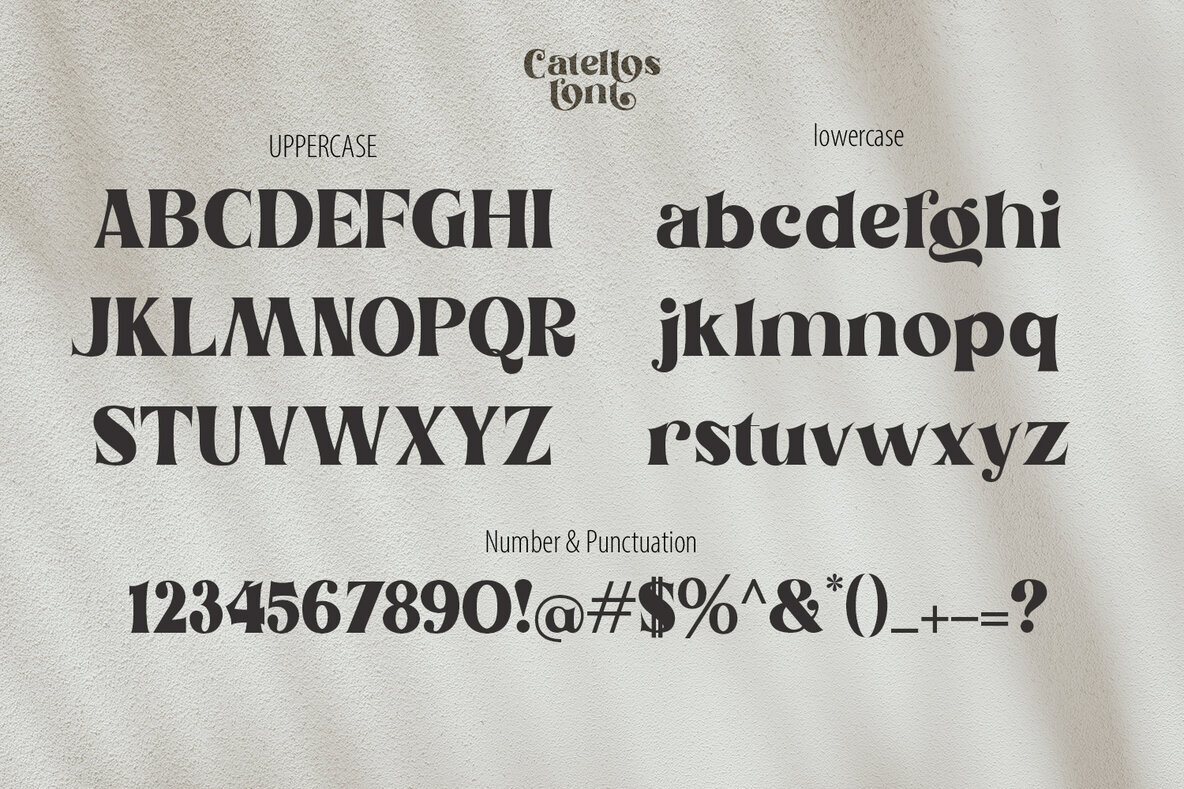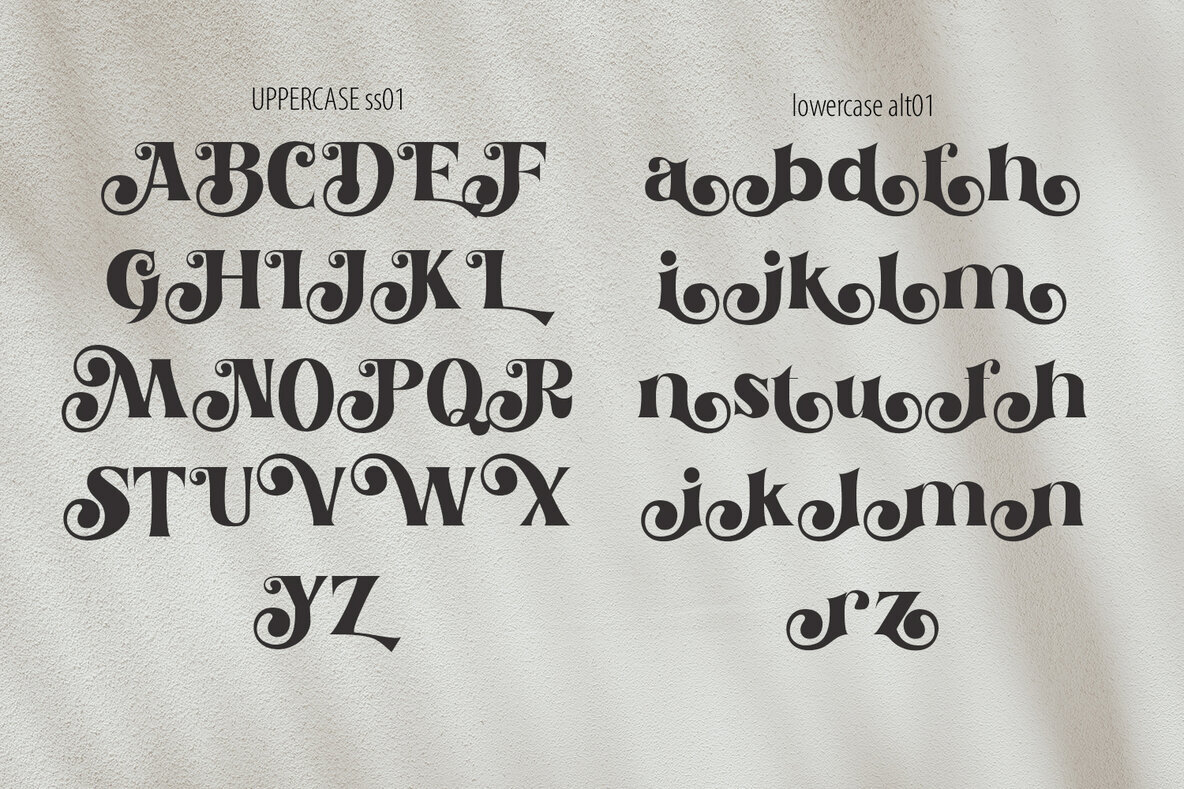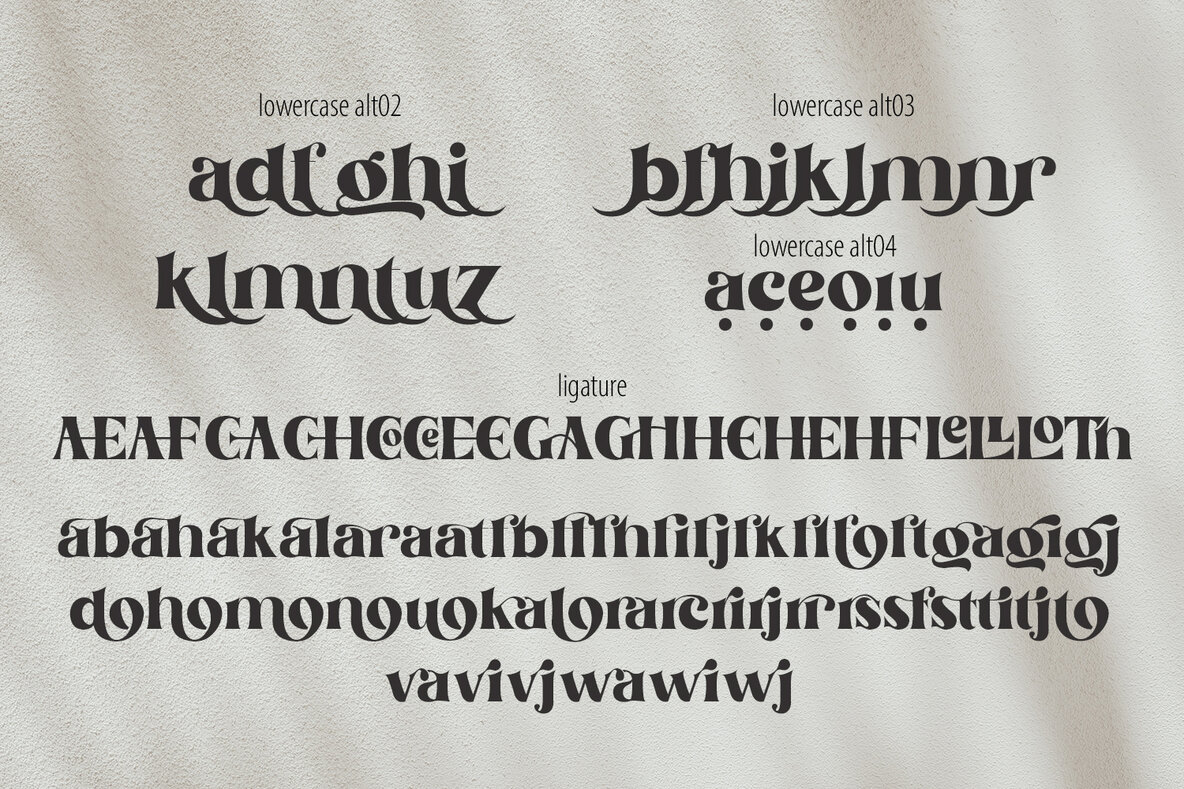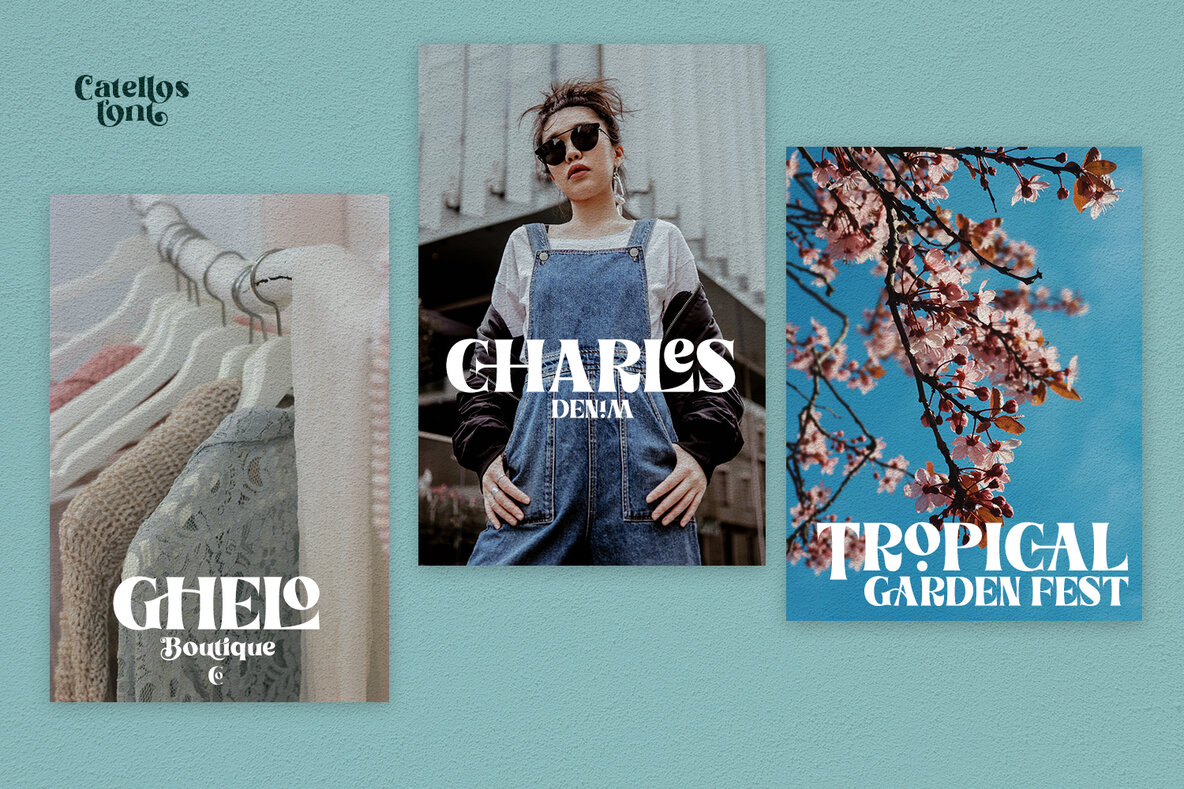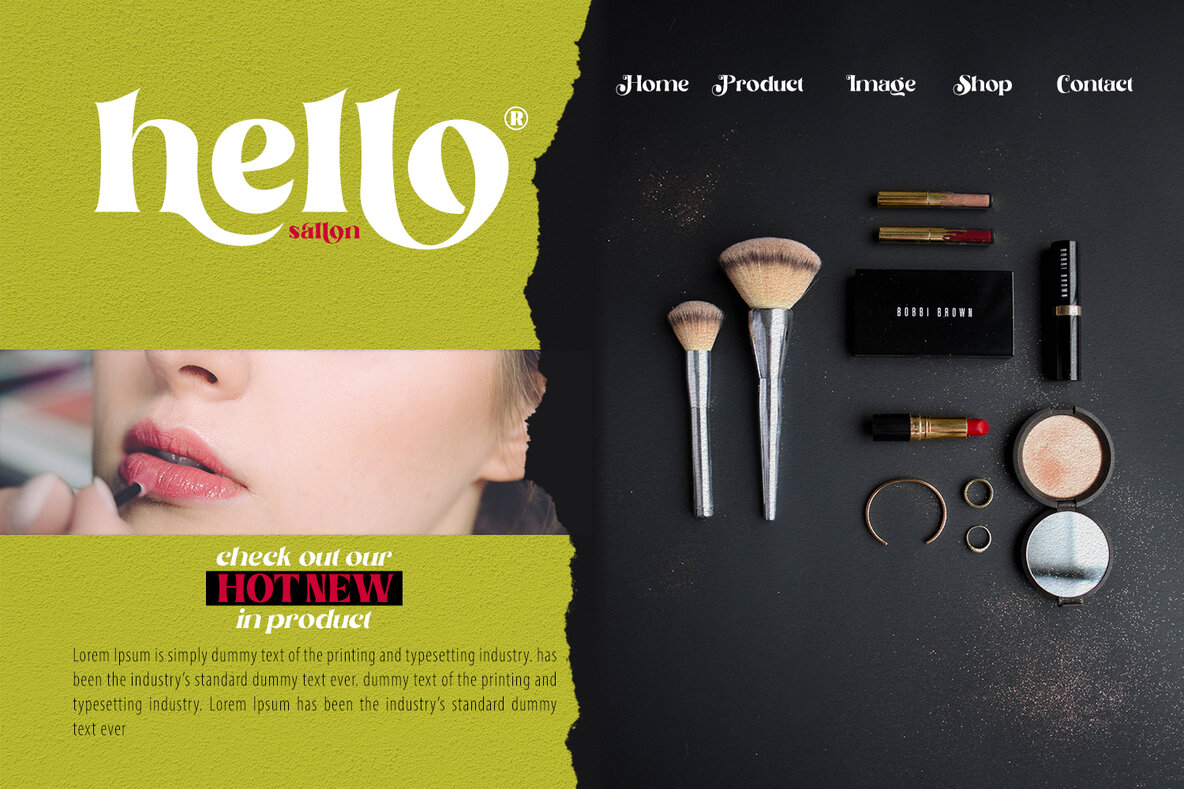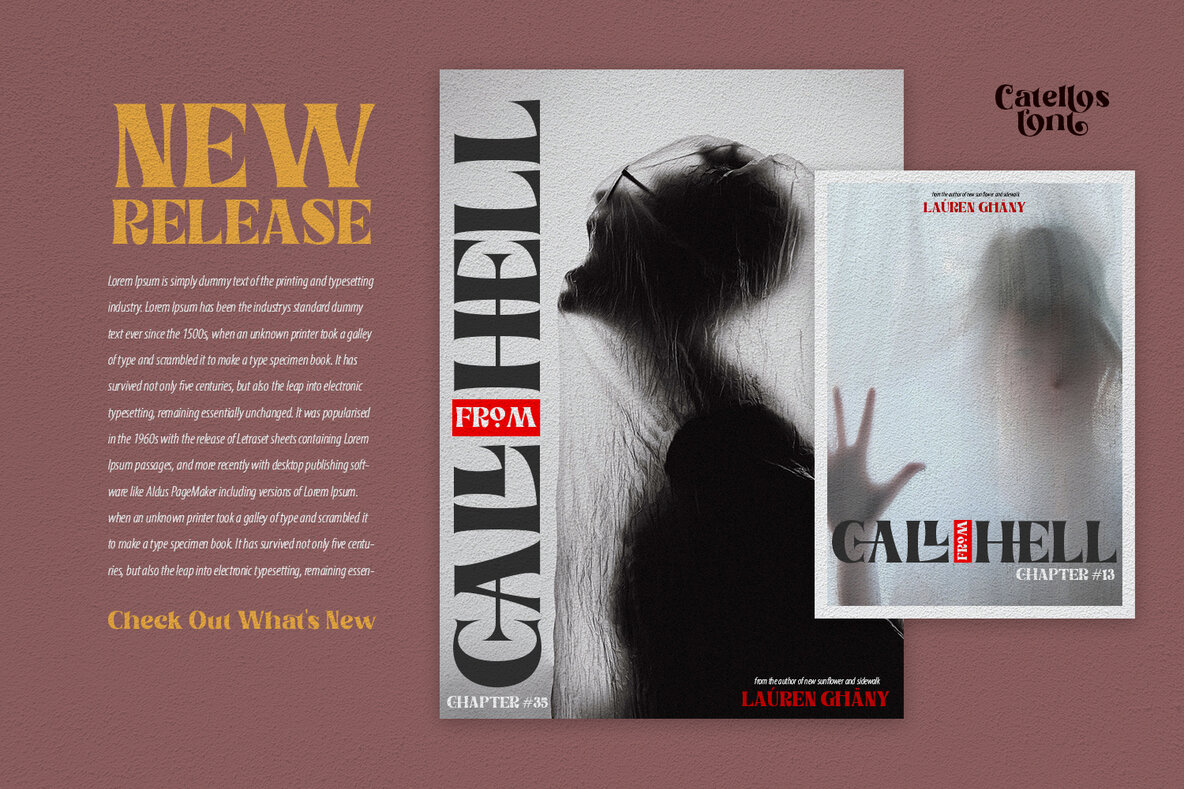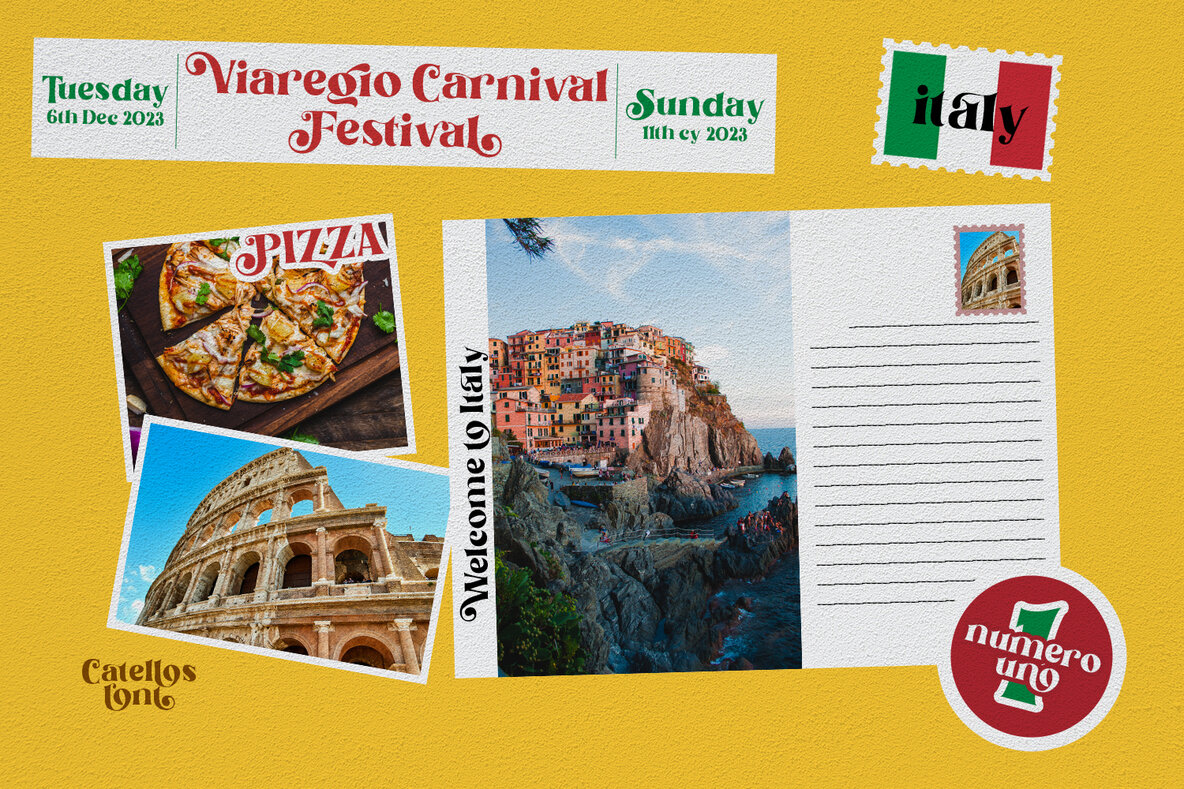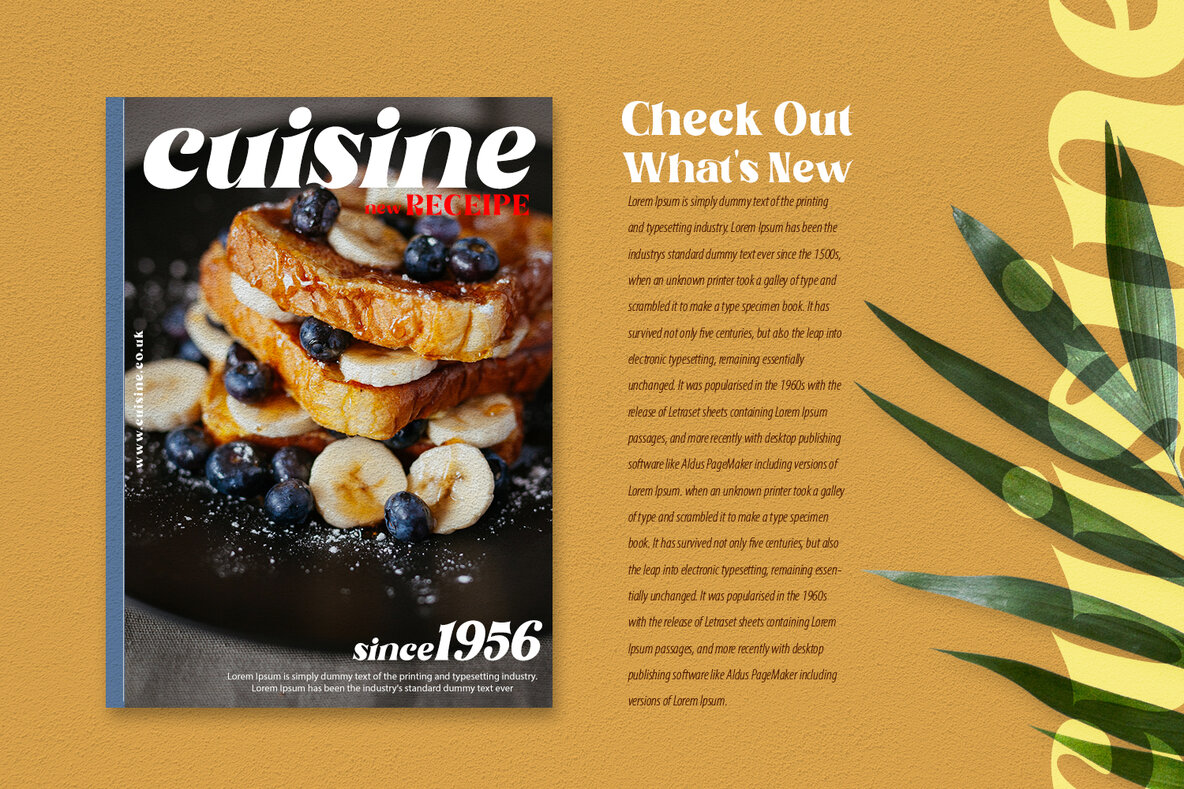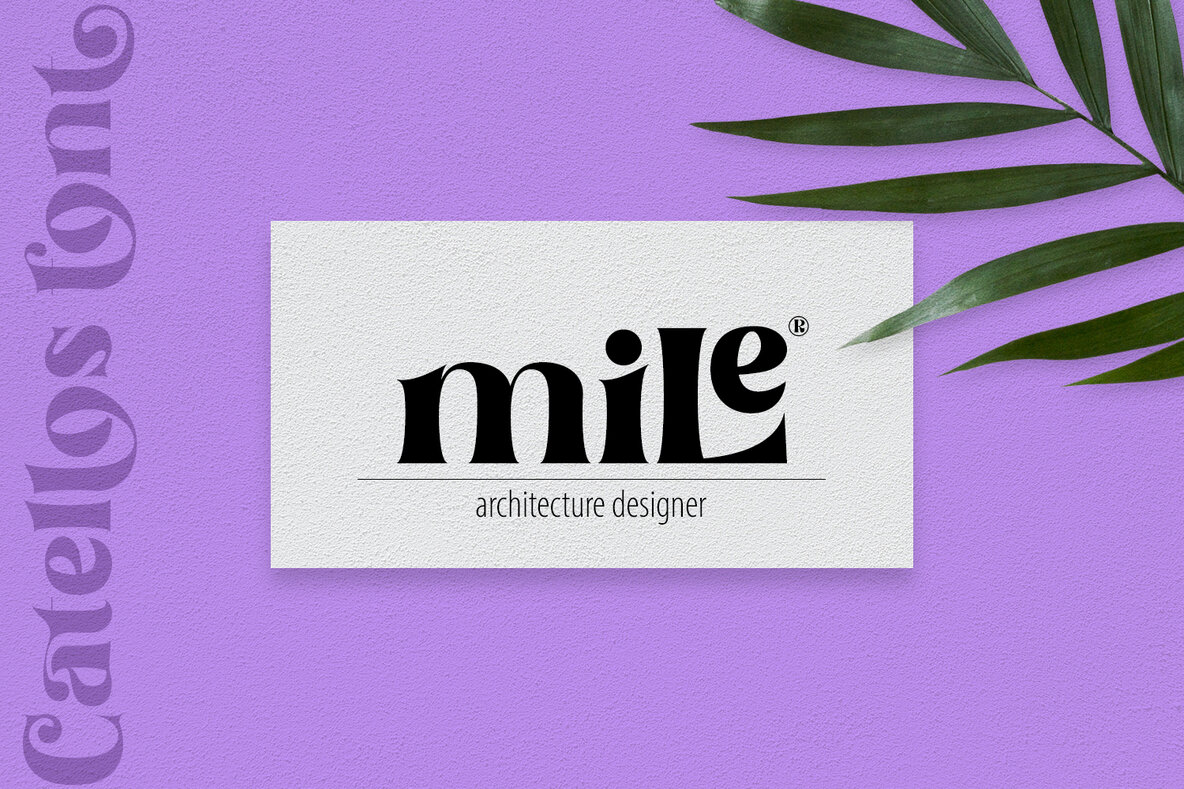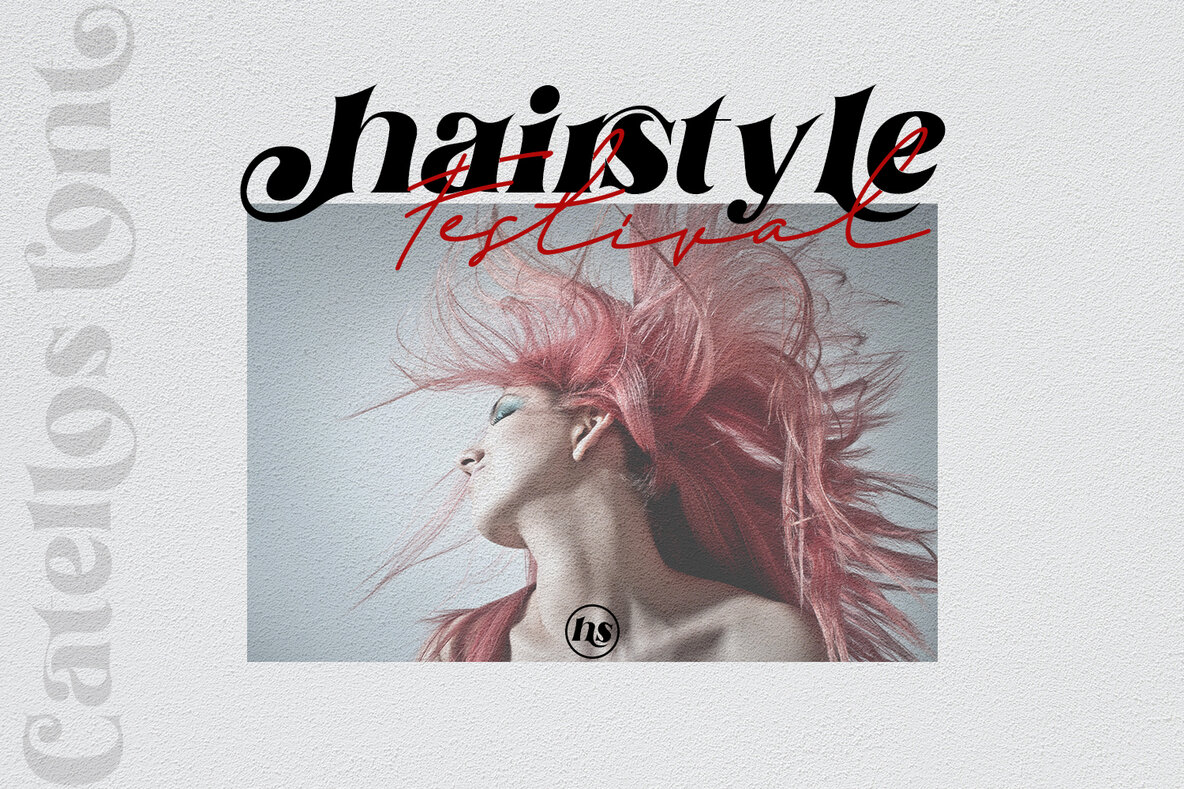
Catellos Font: A Refined Serif for All Your Creations
The Catellos font family embodies the elegance and versatility of serif typography. Available in both Medium and Bold variants, it offers a rich selection of alternates and ligatures that make it ideal for a diverse array of projects.
• Variants – Two striking styles: Medium and Bold.
• Design Flexibility – Extensive alternates and ligatures for diverse creative possibilities.
• Versatile Applications – Perfect for branding, product packaging, invitations, quotes, t-shirts, labels, posters, logos, and more.